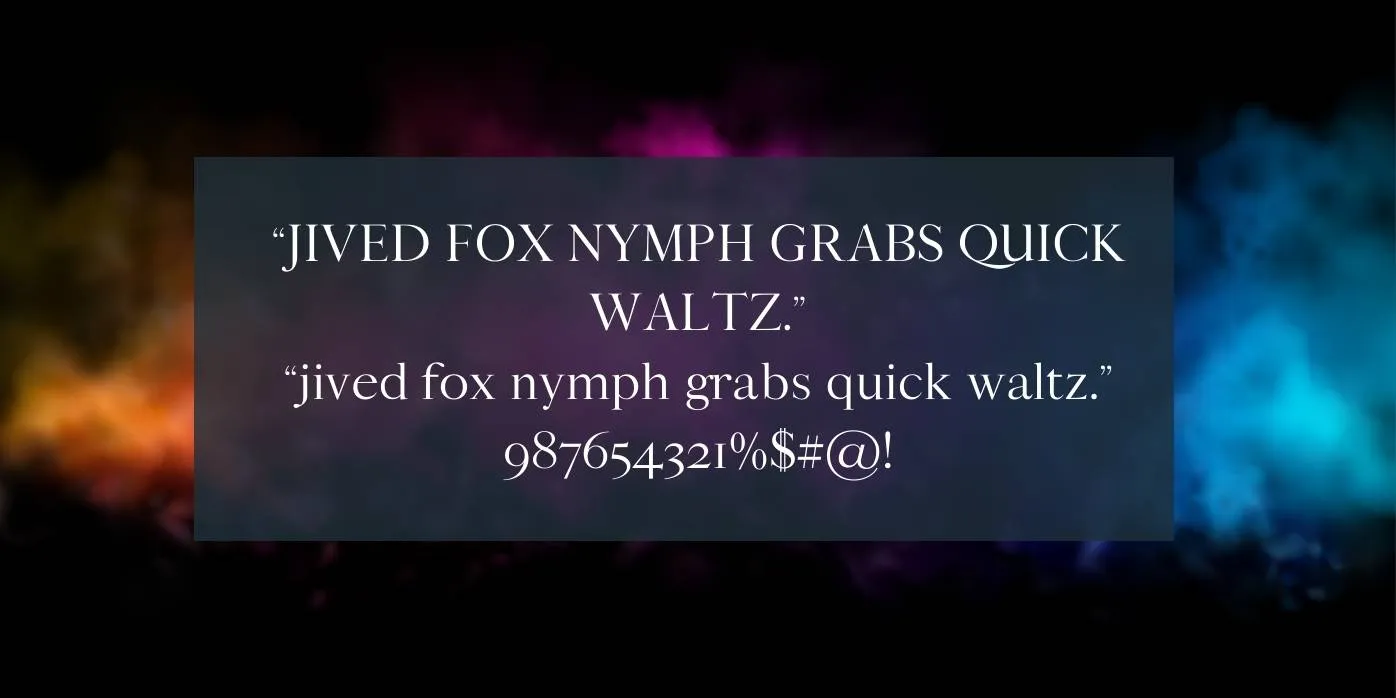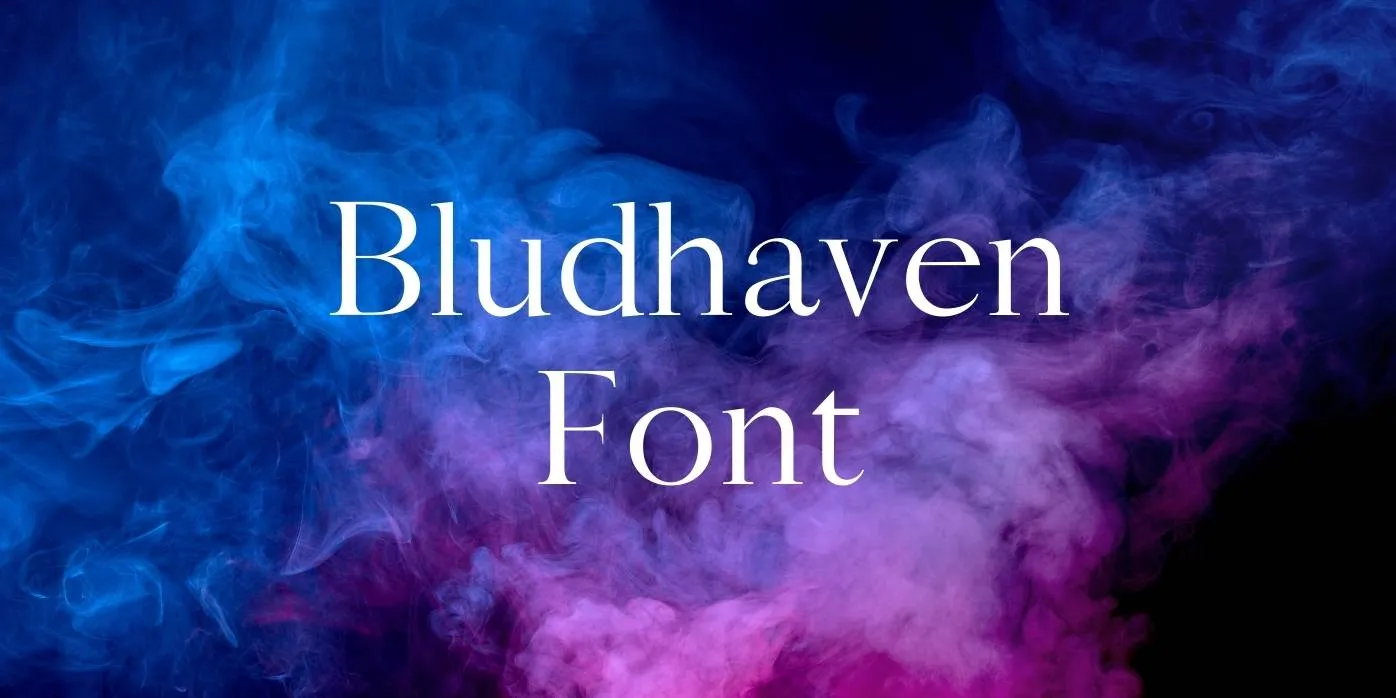
Bludhaven Font
Today, we introduce Bludhaven Font which belongs to the serif family. This classy typeface was developed by Marco Ballare. It is an old-style serif typeface with low contrast and a moderate amount of stress on the horizontal strokes. The design is inspired by the early Italian types such as Garamond and Jenson.
The Bludhaven Font has two different versions: the regular and the italic. Another similar font which is aachen font is perfect for different designs. The regular version is available in five weights Light, Book, Regular, Medium, and Bold while the italic version only comes in three weights. Both versions come with small caps, old-style figures, fractions, and ligatures.
This sophisticated font is perfect for use in both digital and print media. It works well for long blocks of text such as books, articles, and web content. You can also use its generator tool which is best for use in various interesting projects.